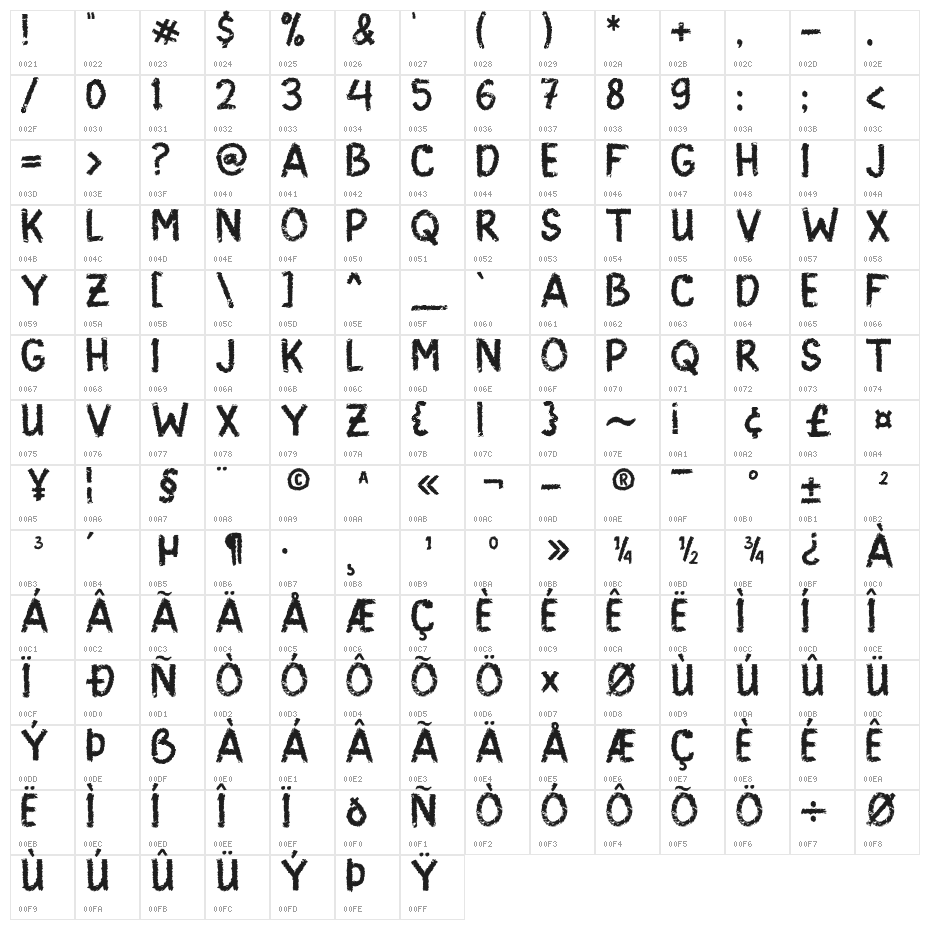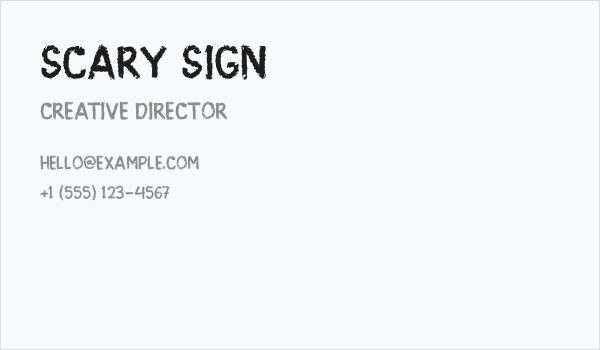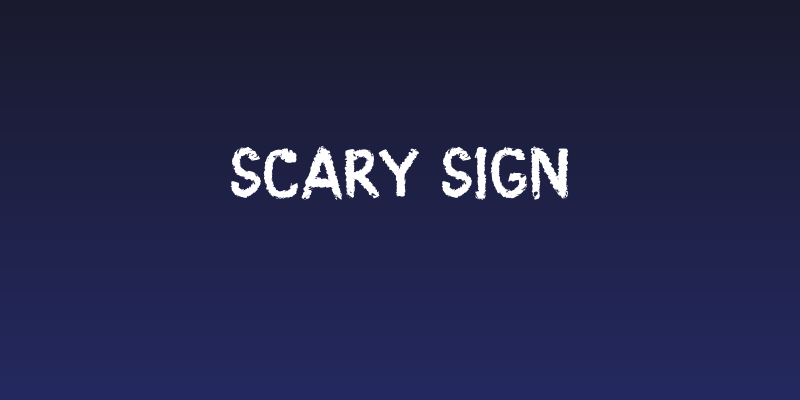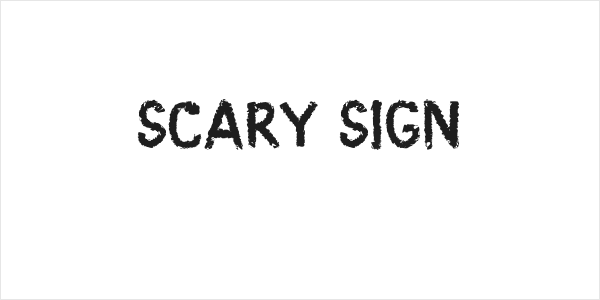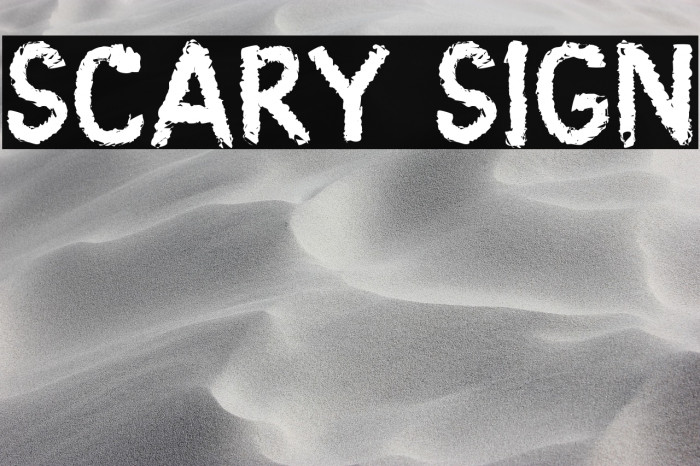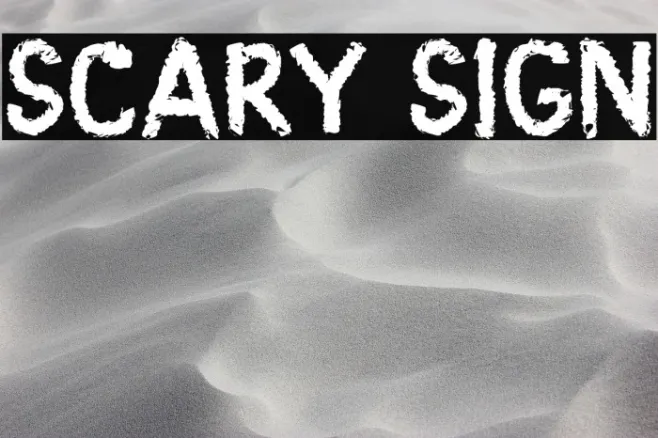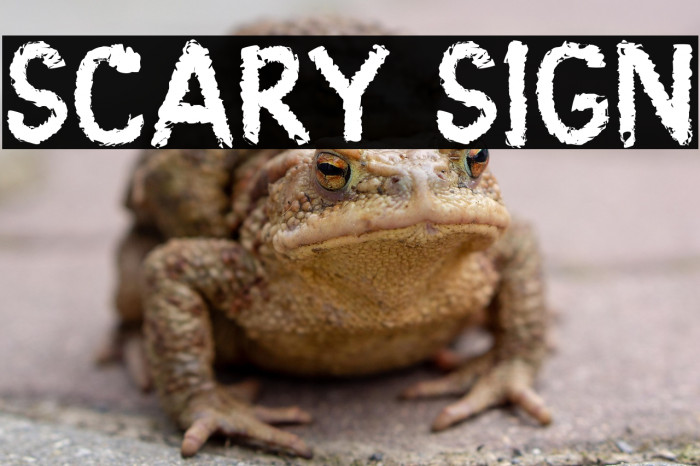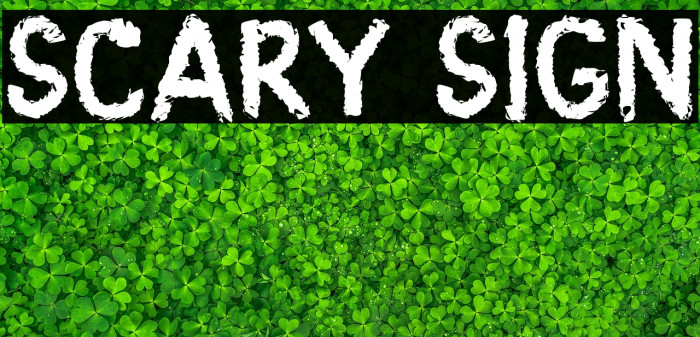
Scary Sign Font
Scary Sign Description
This font features a rough, textured appearance that evokes a sense of unease and mystery. The characters are bold and slightly irregular, with jagged edges that give them a hand-drawn, distressed look. This style is reminiscent of horror or thriller themes, making it ideal for projects that require a spooky or eerie atmosphere. The uppercase and lowercase letters maintain a consistent style, while the numbers and special characters complement the overall design. The font's unique texture adds depth and character, making it stand out in any design.
| Proposed Projects | Ideal for Halloween-themed designs, horror movie posters, haunted house flyers, and spooky event invitations. |